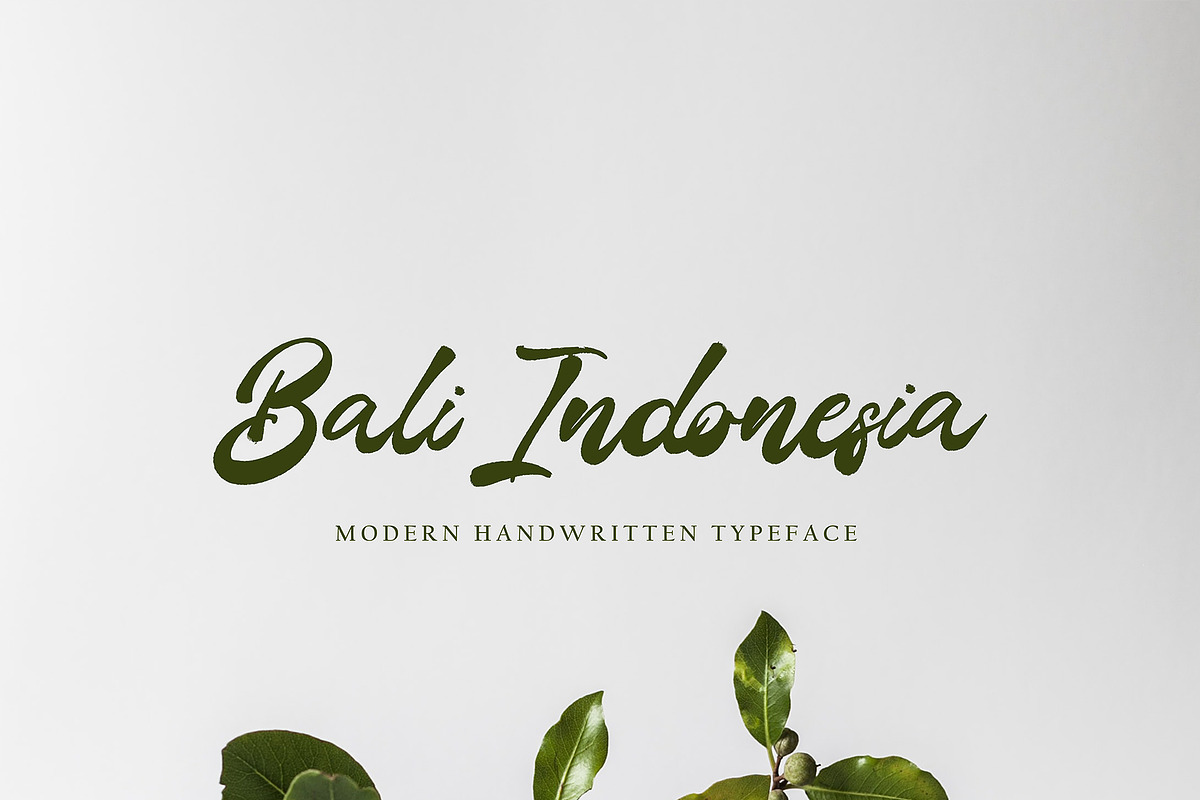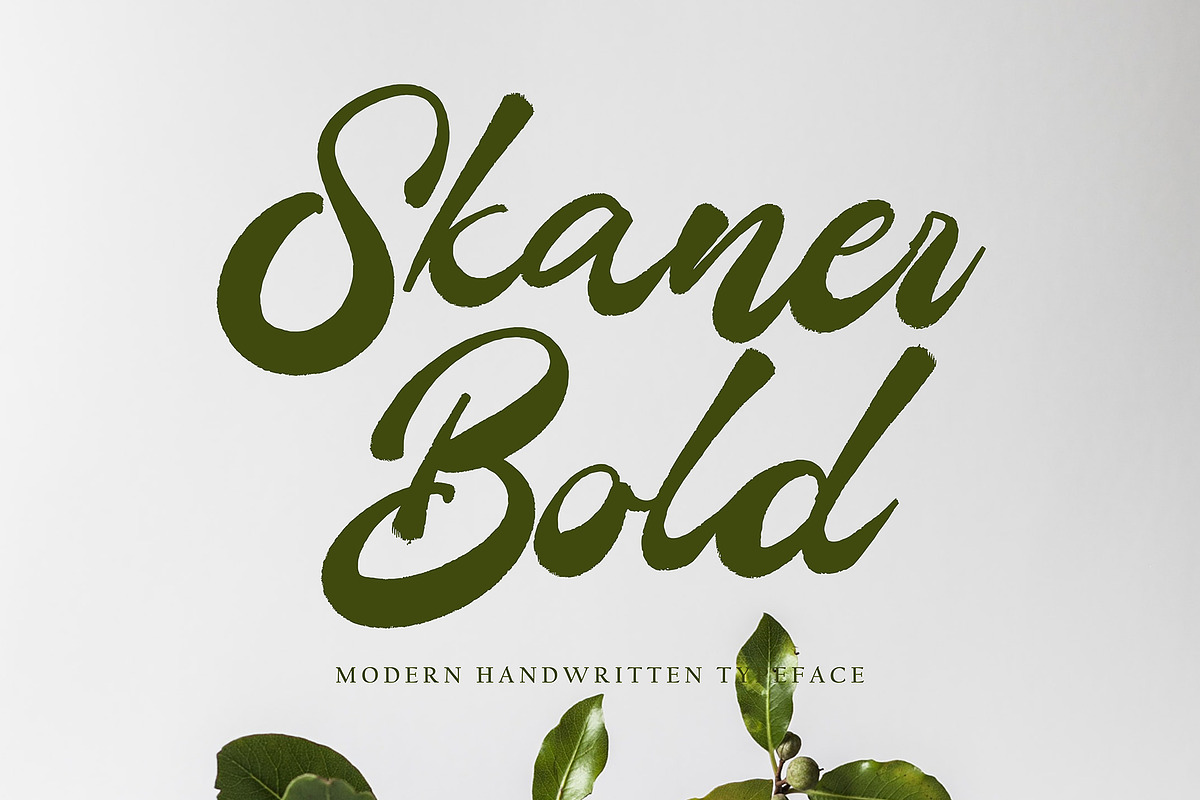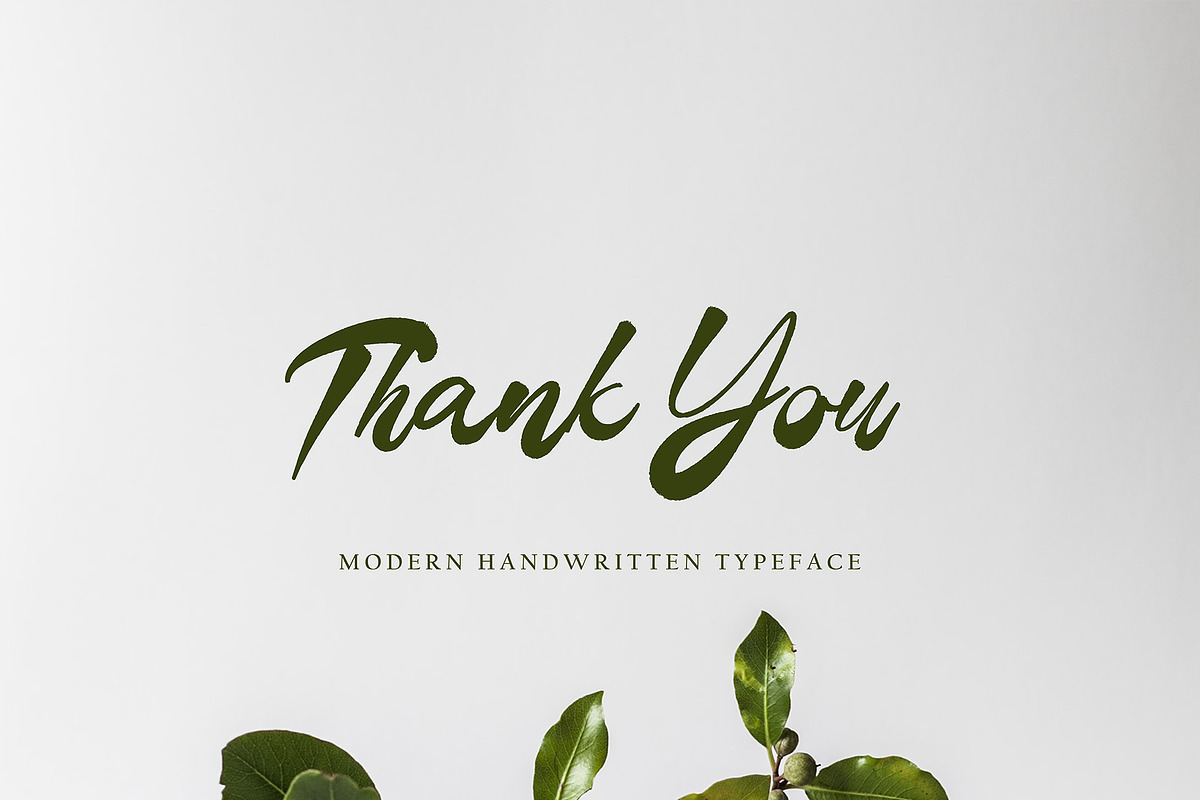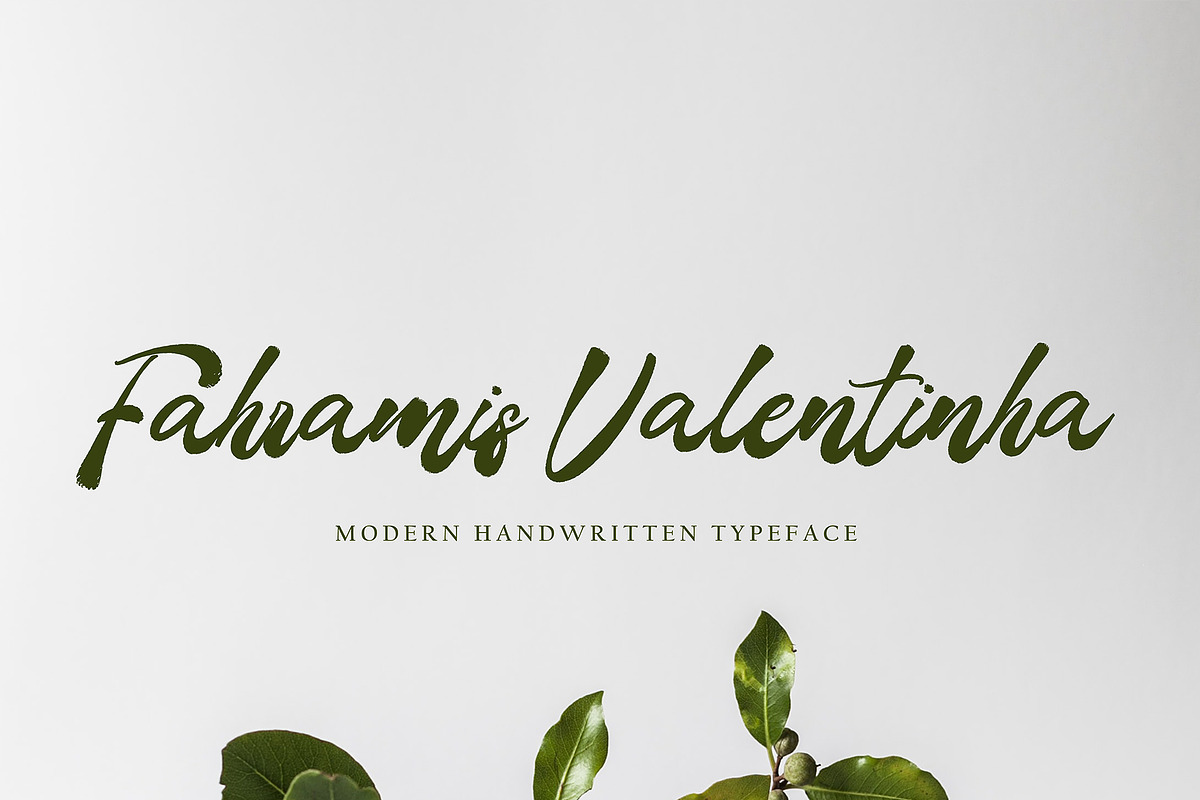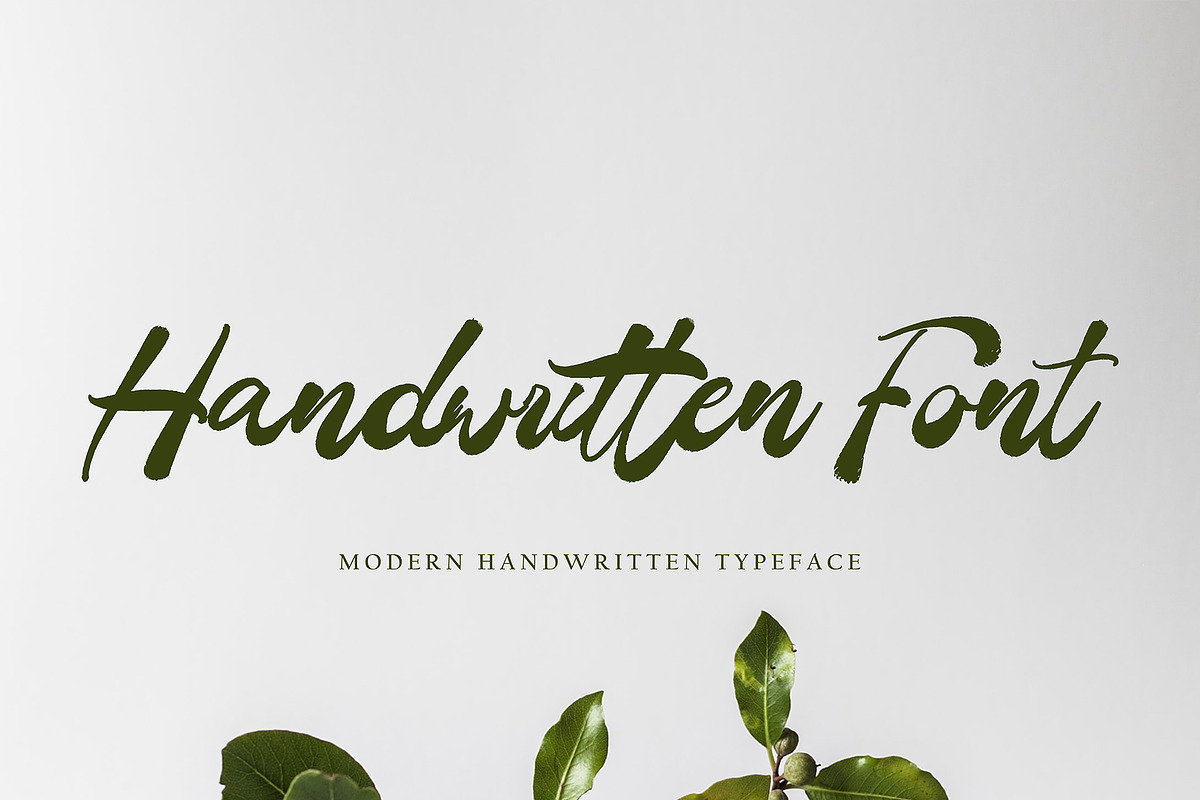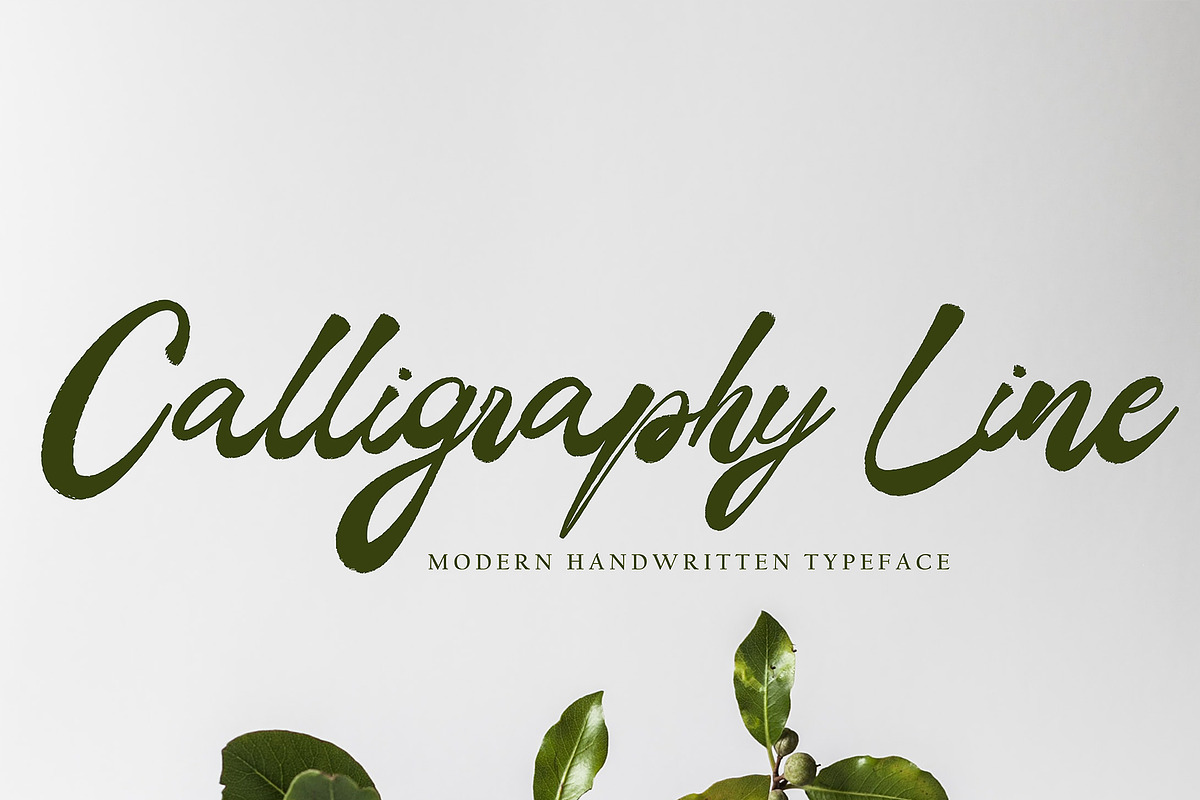
Skaner Bold
Skaner Bold with new style, this font will perfect for many different project ex: quotes, logo, blog header, poster, banding, letter, invitation, stationery, etc...